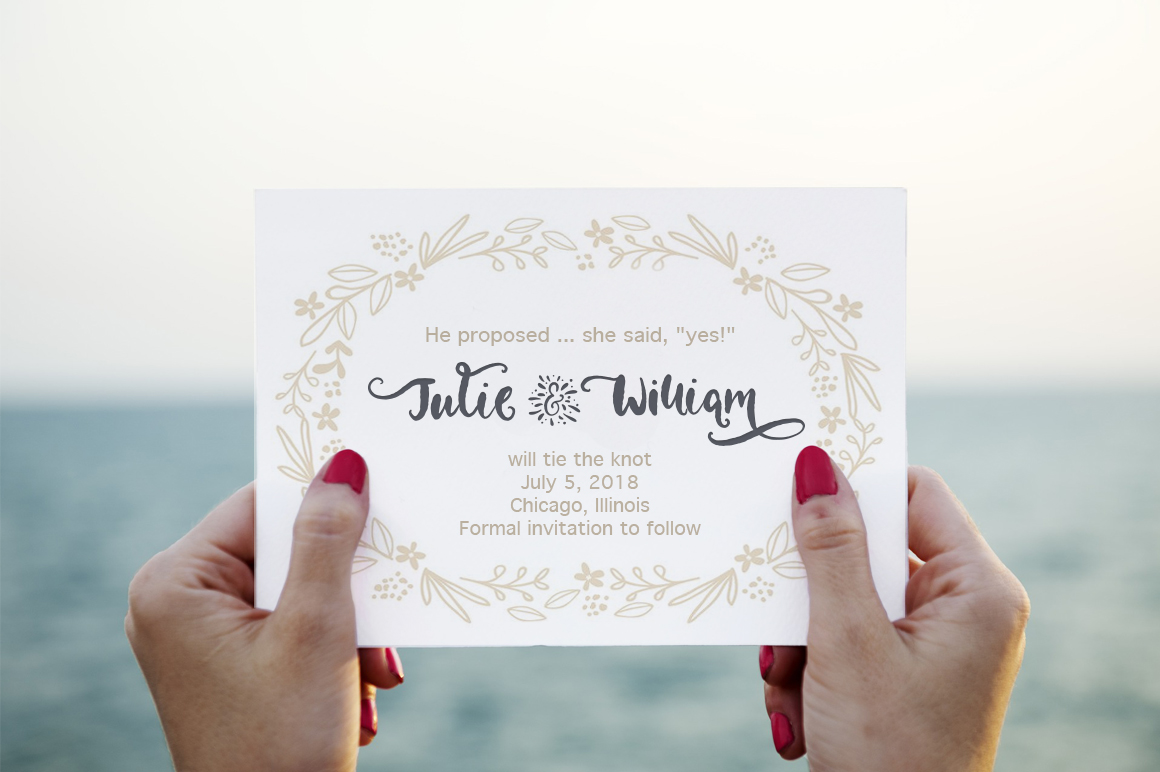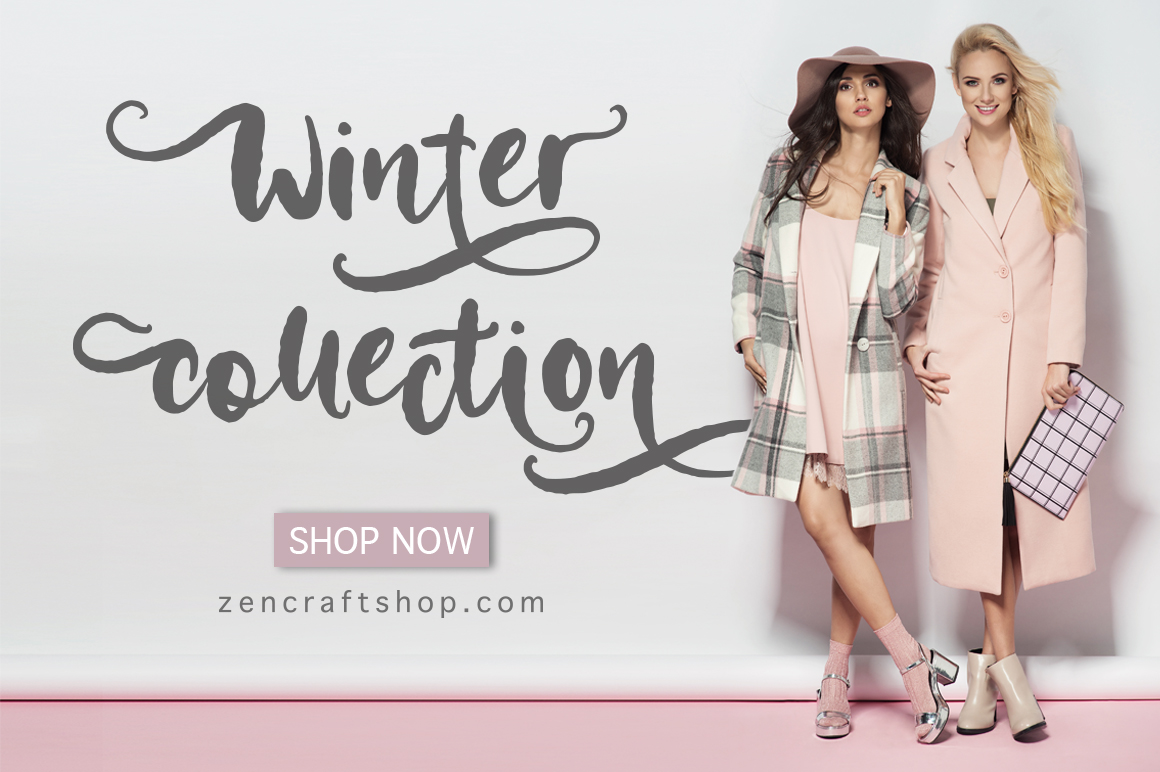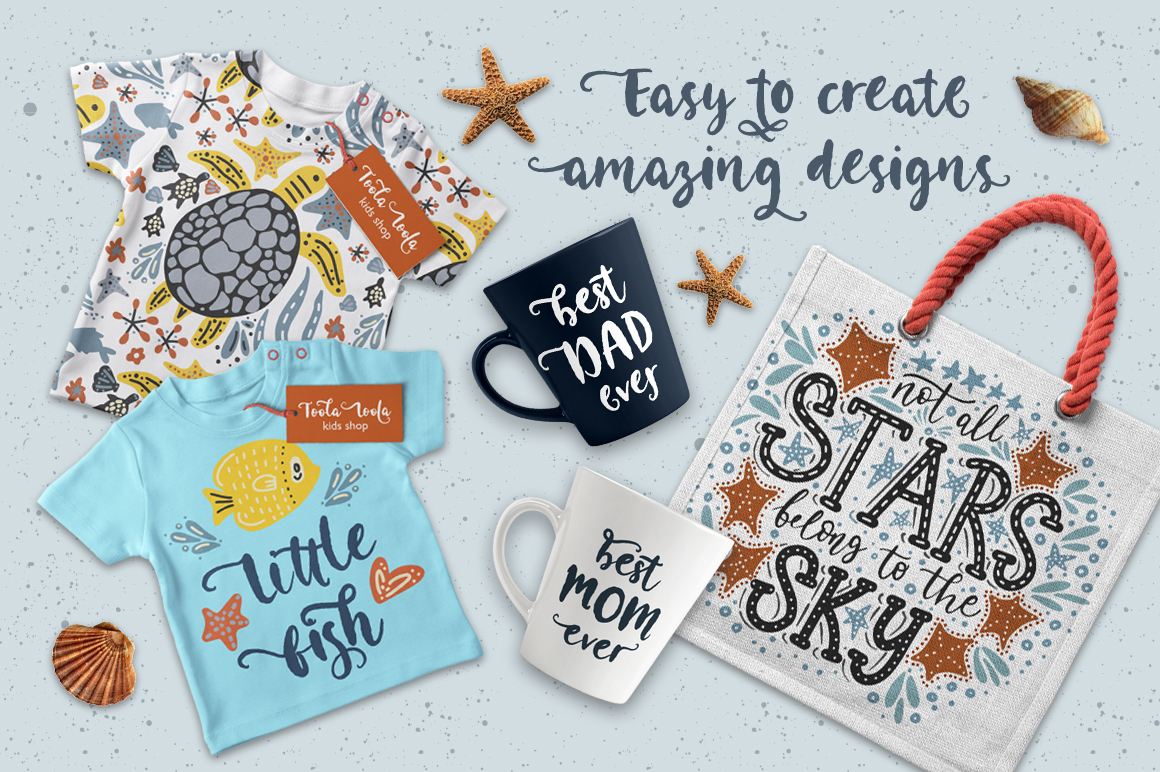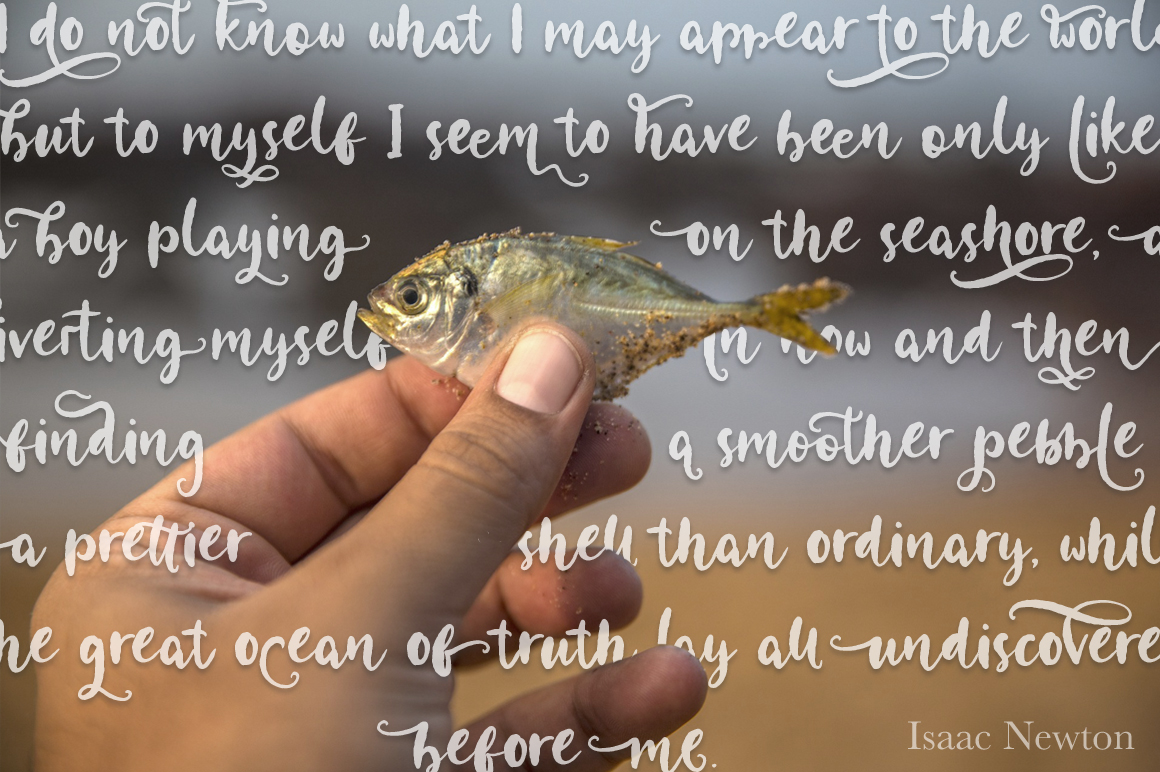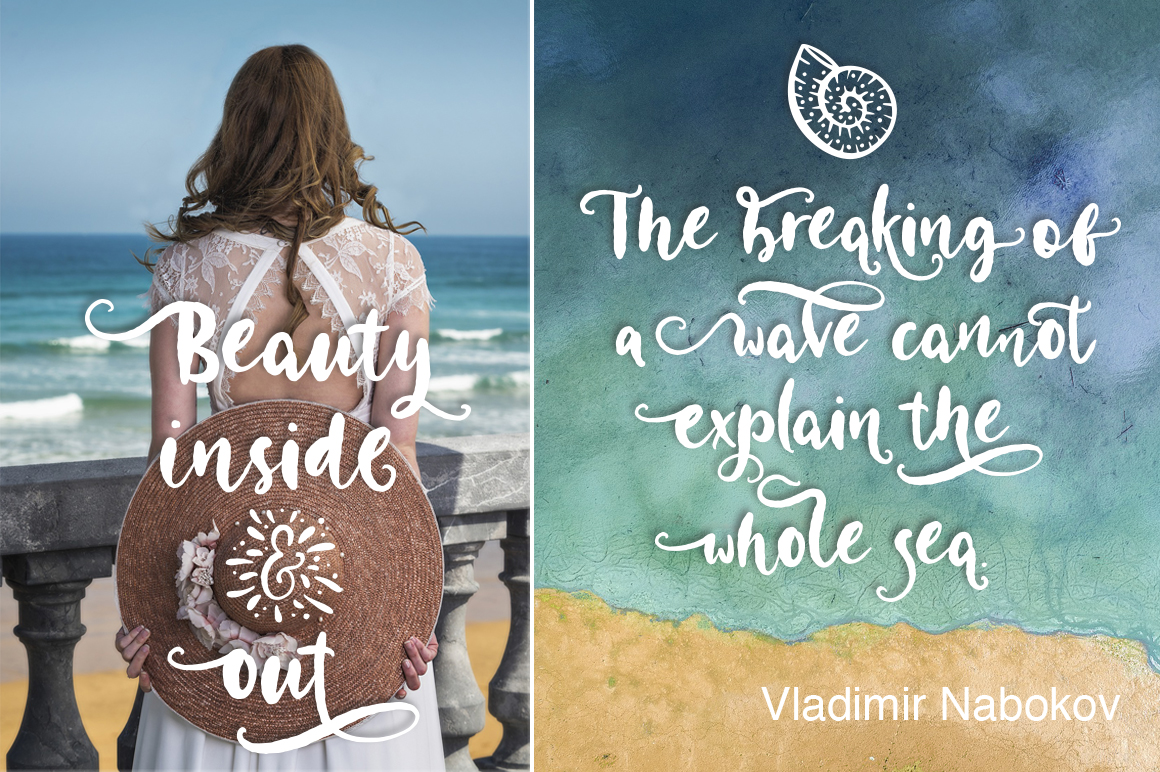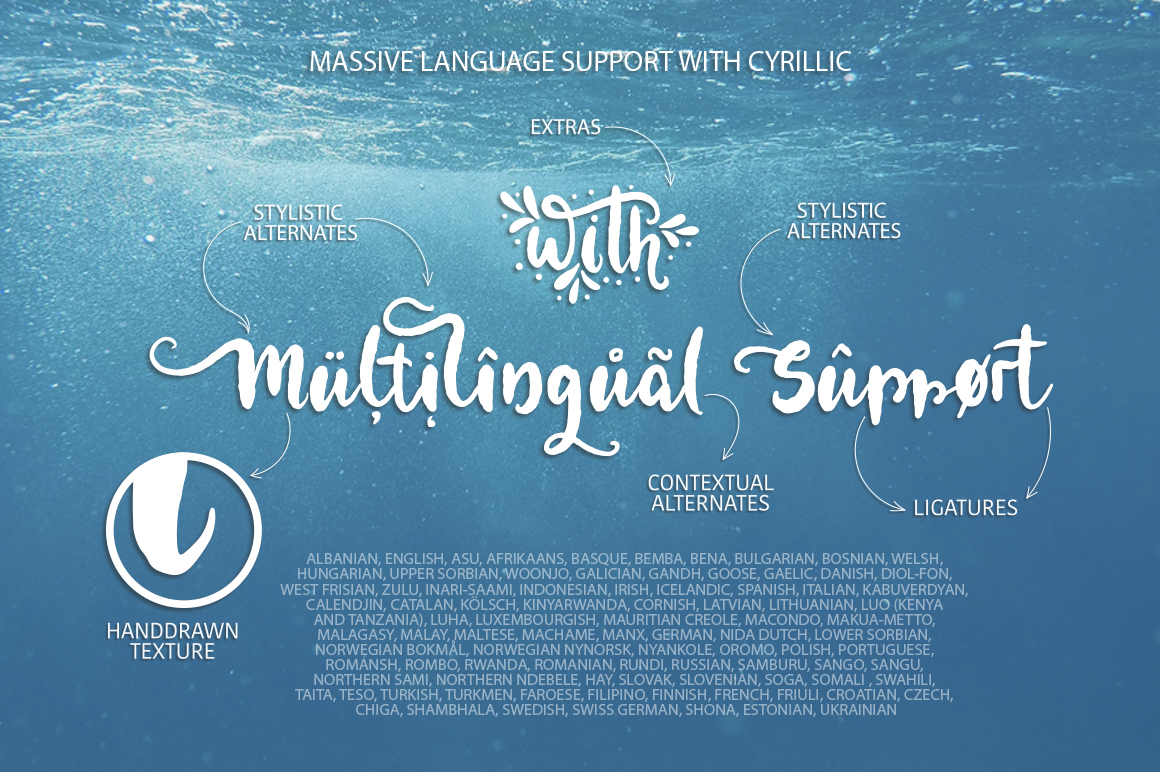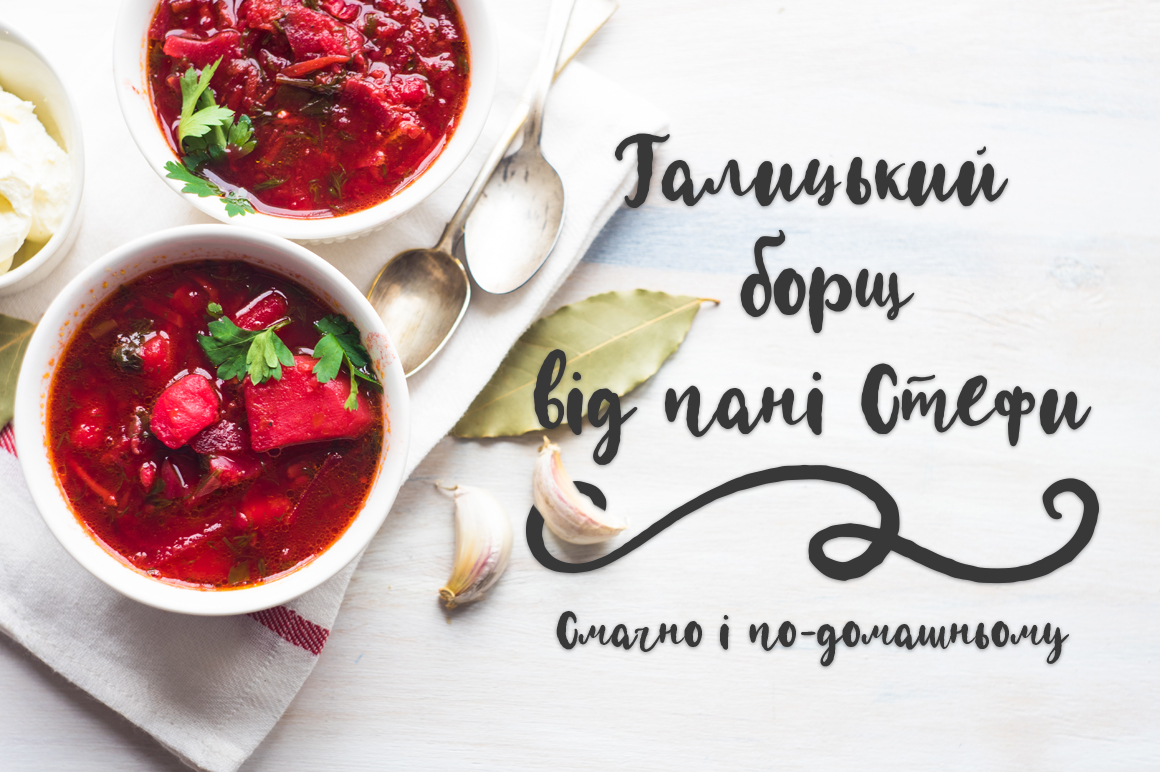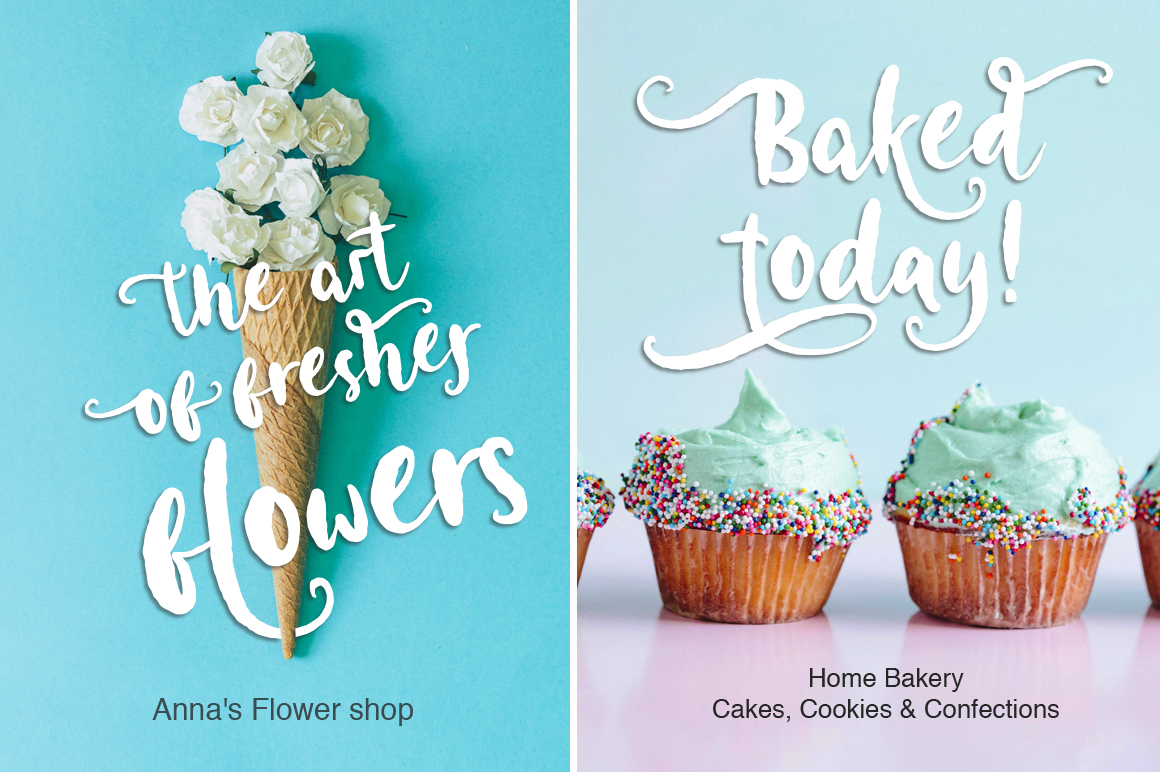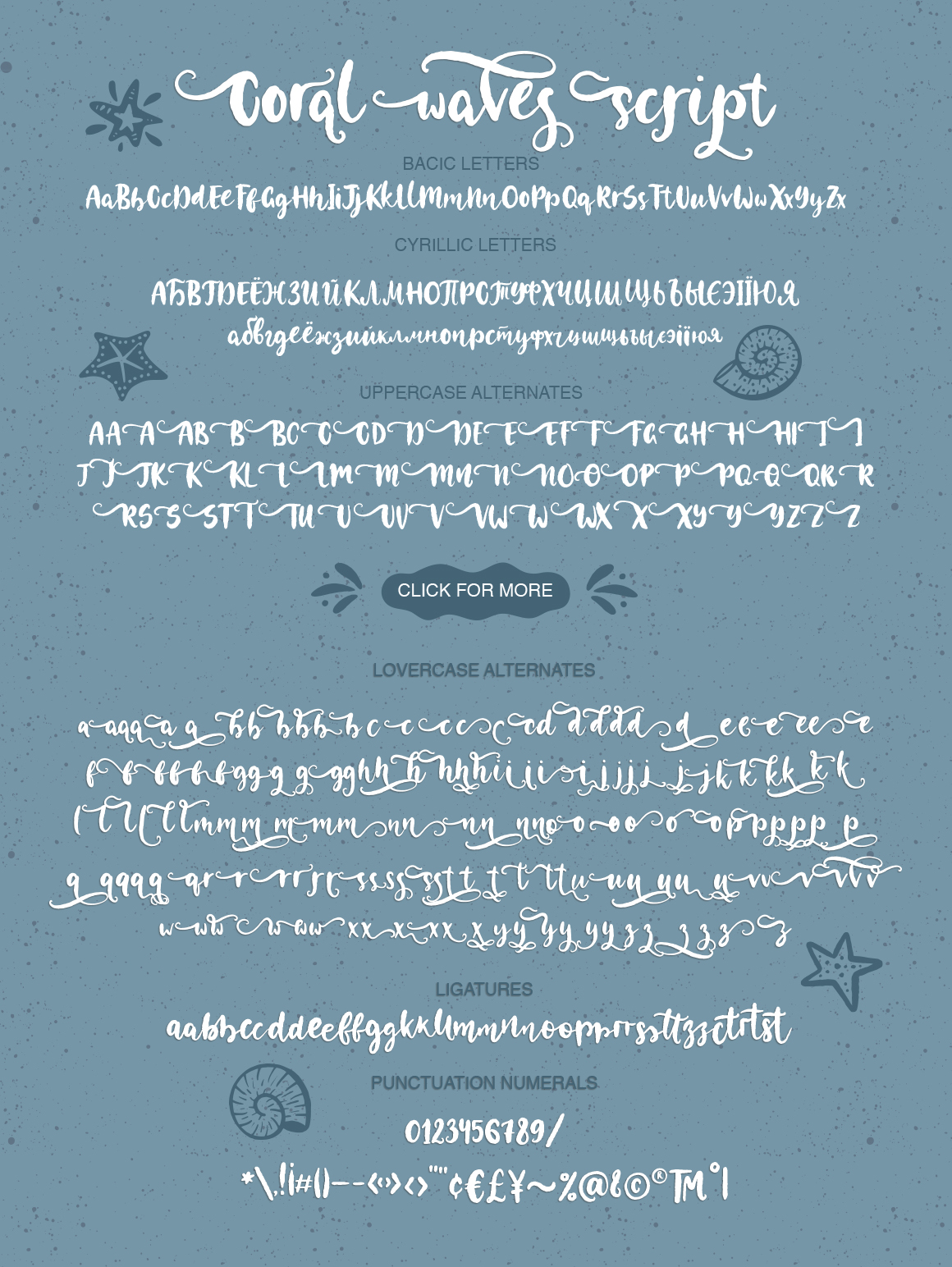
Coral Waves Font
About Coral Waves Font
Coral Waves is an amazing, hand font that is friendly and carefree. This font comes with a ton of stylistic alternates, as well as massive extras in your download for an amazing font pack.